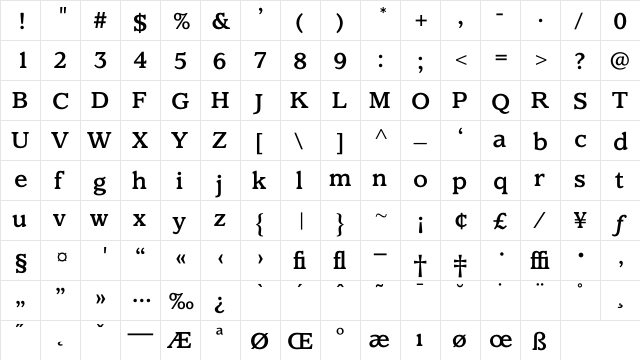
ClaremontMedium Regular
Design Context for ClaremontMedium Typeface
ClaremontMedium offers clean, dependable letterforms without strong stylistic allegiance, making it a practical choice for designers who need flexibility.